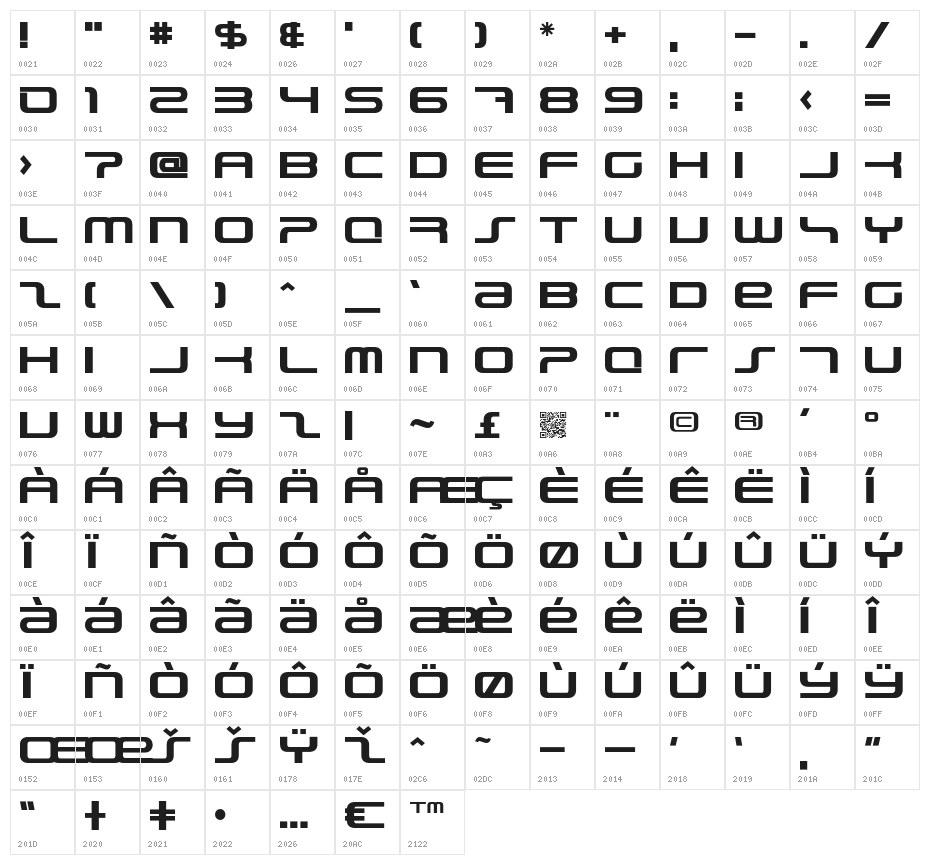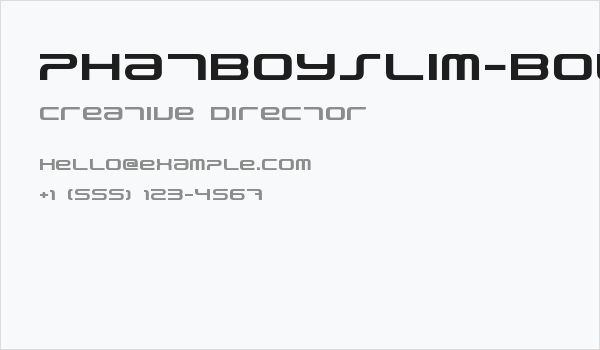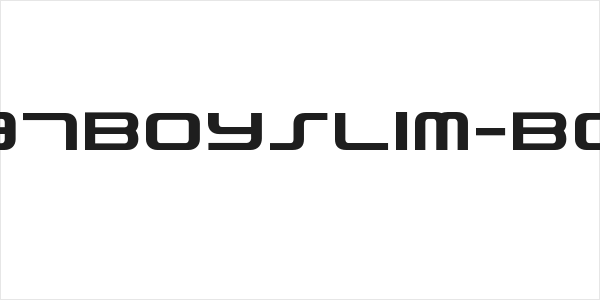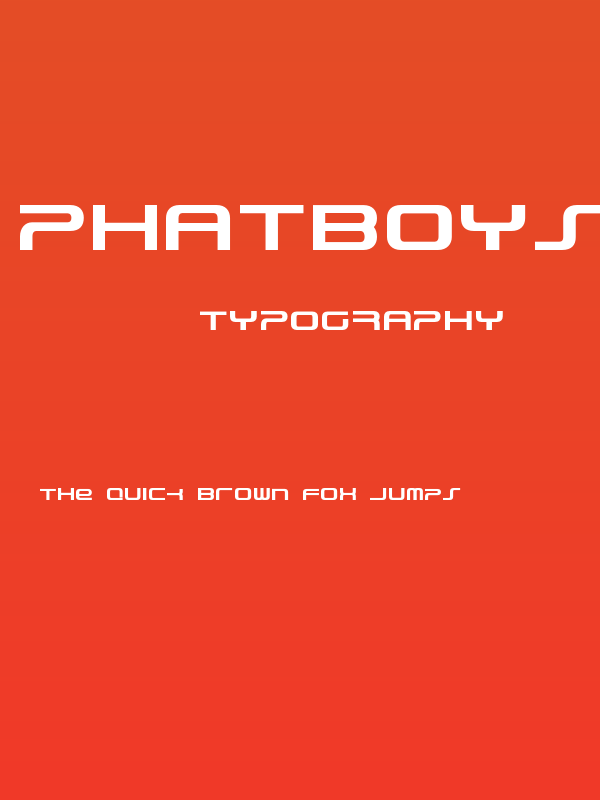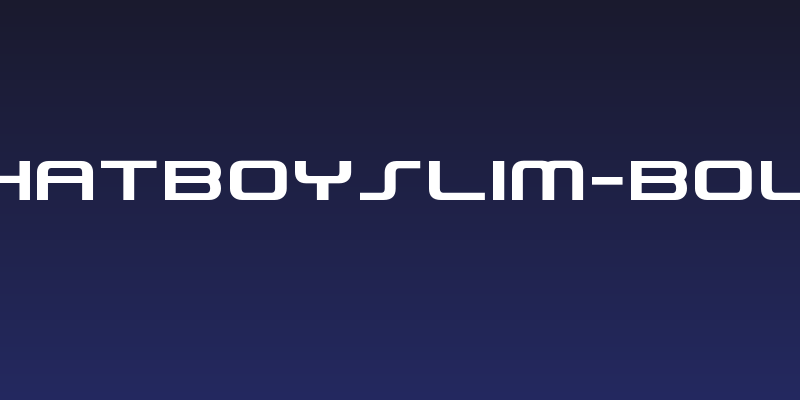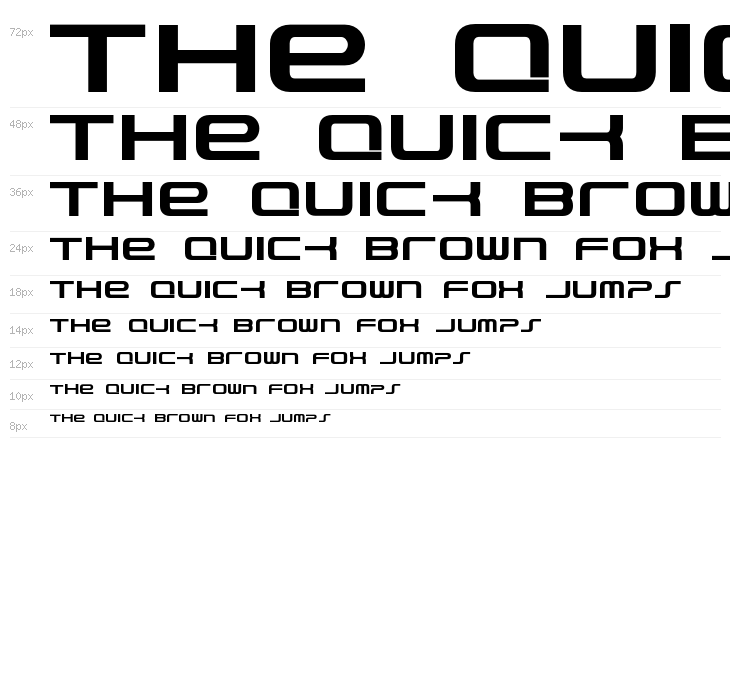
PhatBoySlim-Bold Font
PhatBoySlim-Bold Description
This font features a bold, modern design with a futuristic flair. The characters are constructed with a geometric precision, showcasing rounded edges and a consistent stroke width. The uppercase and lowercase letters maintain a uniform height, creating a cohesive look. The numerals and special characters are designed to match the overall aesthetic, with a distinctive style that stands out. The font's unique character shapes, such as the curved 'R' and the angular 'S', add a touch of creativity and innovation. This typeface is perfect for projects that require a contemporary and eye-catching appearance.
| Proposed Projects | Ideal for tech branding, futuristic posters, video game titles, and modern advertisements. |